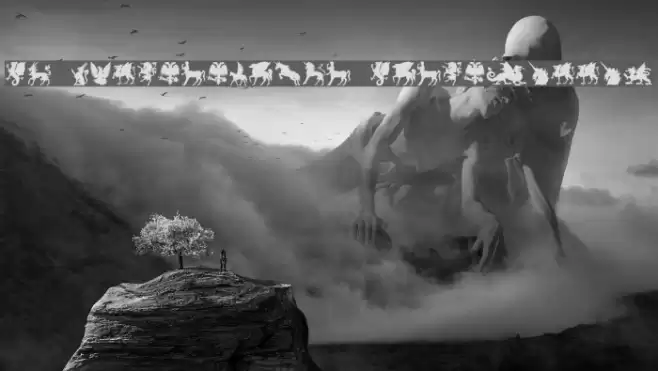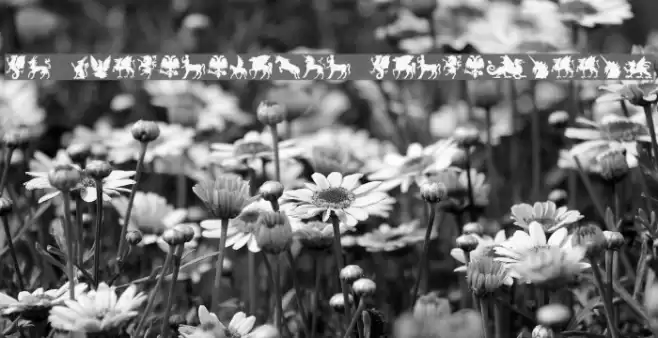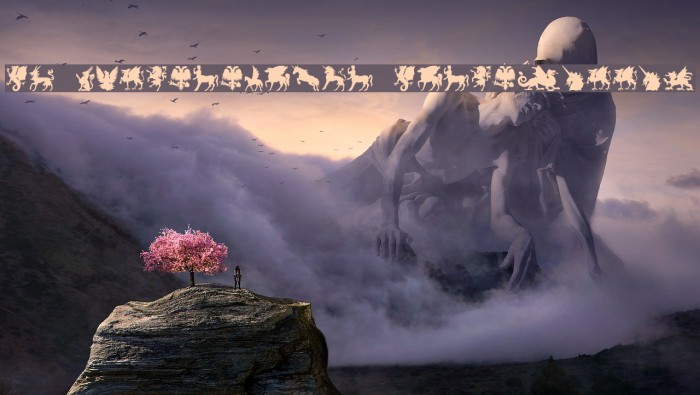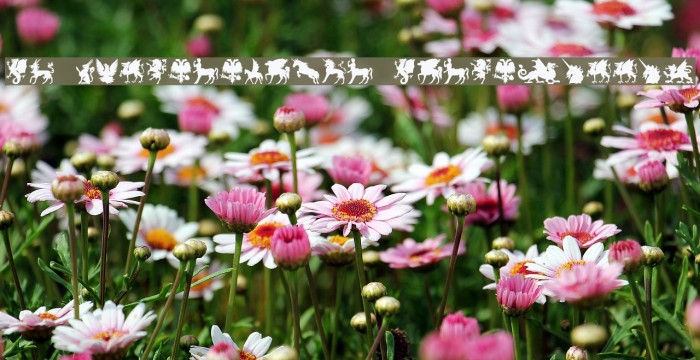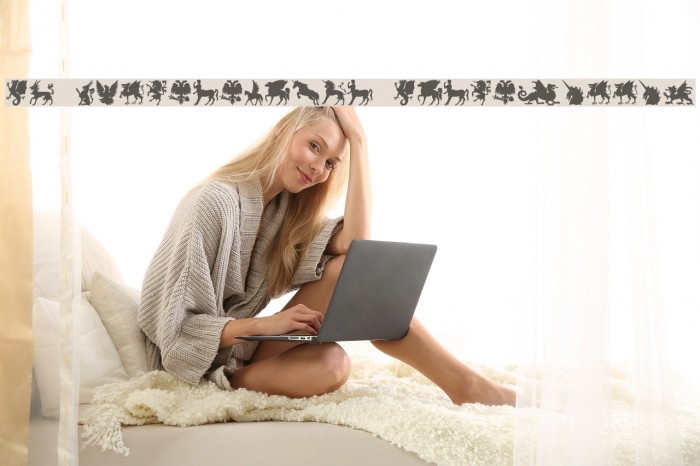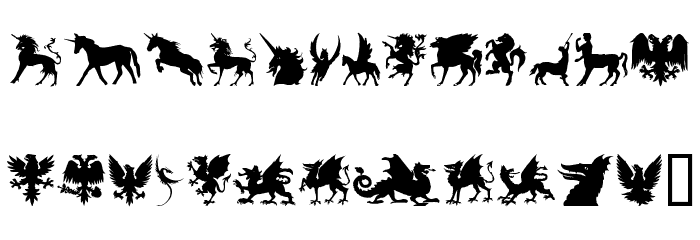
SL Mythological Silhouettes Font
SL Mythological Silhouettes Description
A decorative collection of bold, black silhouettes depicting various mythological creatures and legendary beasts. Each character is represented by a unique, detailed silhouette rather than traditional letterforms or numerals.
Mythological creature silhouettes in a decorative, pictorial style from Dingbats fonts.